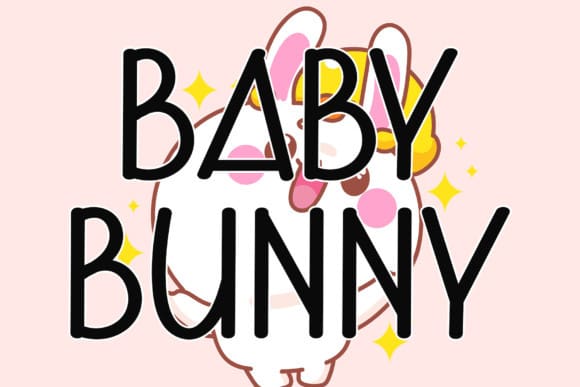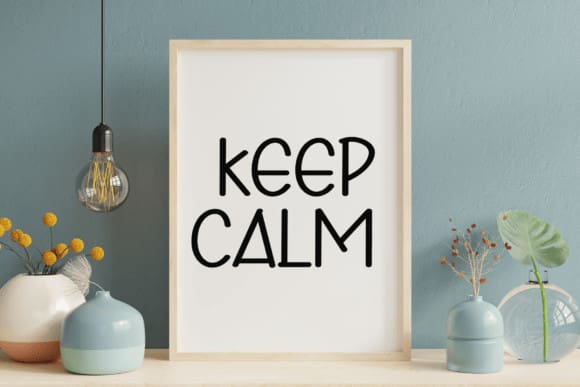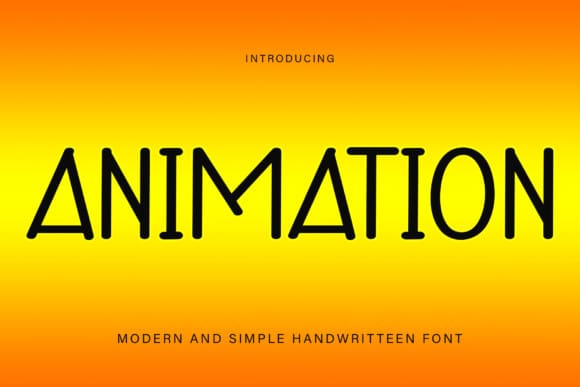
Animation Font
Animation Font is a cool and modern Sans Serif font. Whether you’re using it for crafts, digital design, presentations, or making greeting cards, this font has the potential to become your favorite go-to font, no matter the occasion.